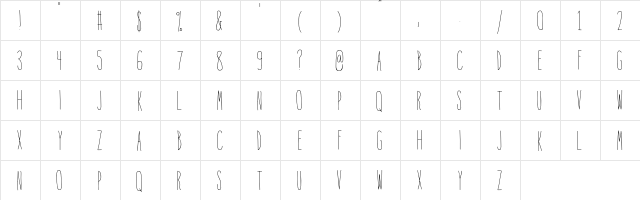
Into the Vortex Regular
| Foundry | Skyhaven |
| Designer | Alex Tomlinson |
Design Context for Into the Vortex Typeface
Into the Vortex offers clean, dependable letterforms without strong stylistic allegiance, making it a practical choice for designers who need flexibility.